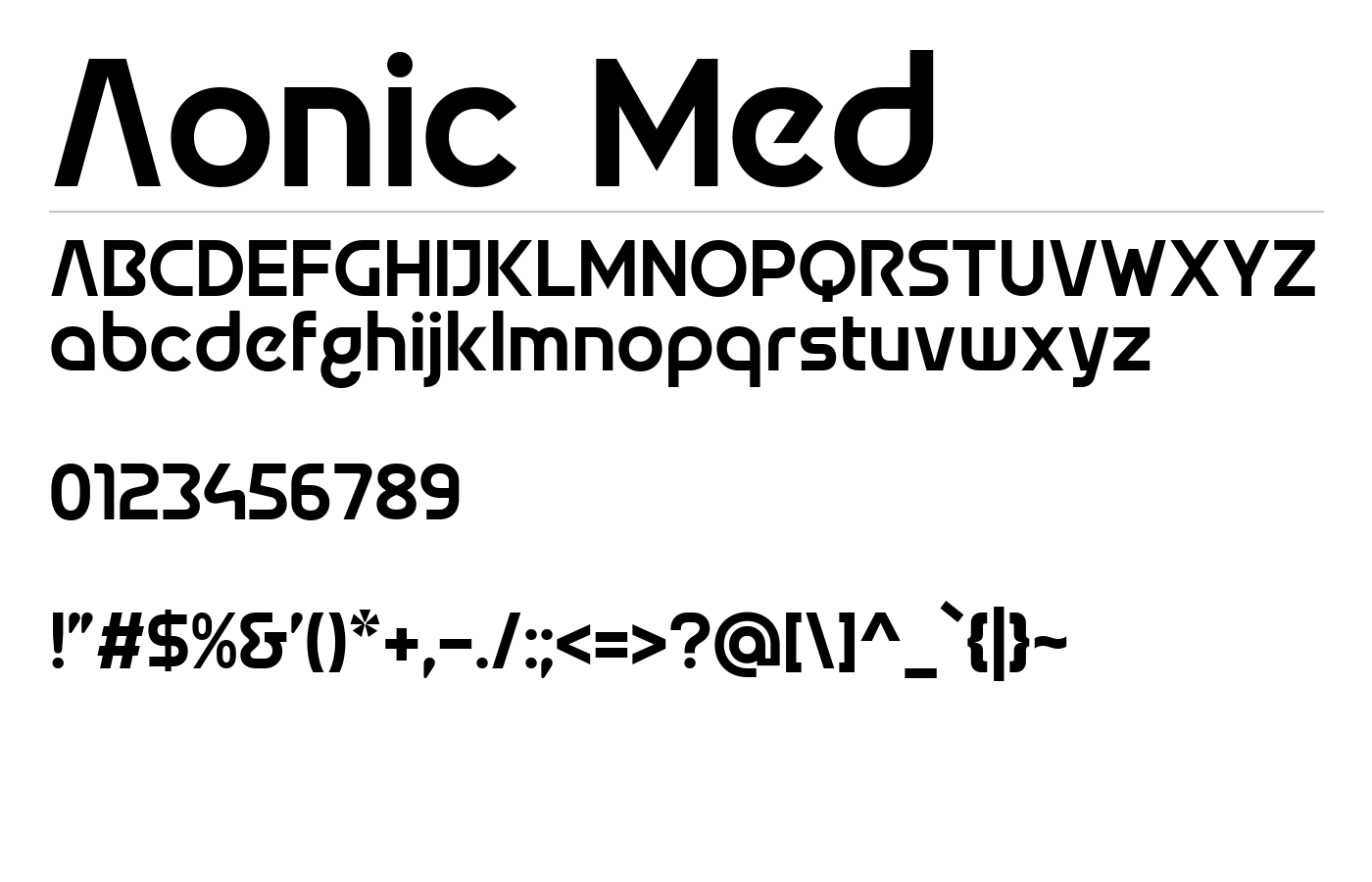
Aonic is a bold, geometric sans serif font with a modern and slightly futuristic vibe, featuring clean lines and distinctive letterforms that give it a unique character. Its high x-height and consistent stroke weight make it highly legible, while the subtle angles and stylized shapes add a dynamic, tech-inspired personality ideal for branding, headlines, and digital use. This font works well for creative projects that seek a contemporary, innovative appearance without losing clarity or impact.
Aonic Font
About Aonic Font
| Font family | Aonic Font |
| Languages supported | Latin, Cyrillic, Symbols, Greek |
| Designer | Sugiyanto |